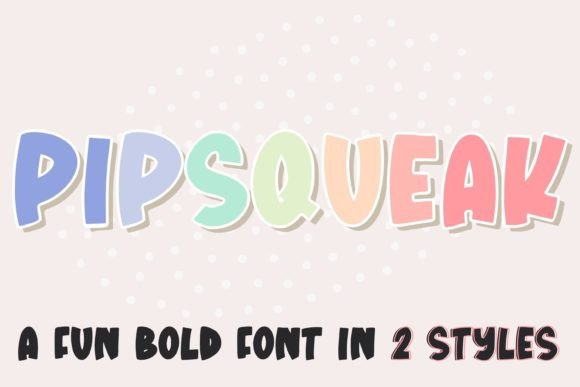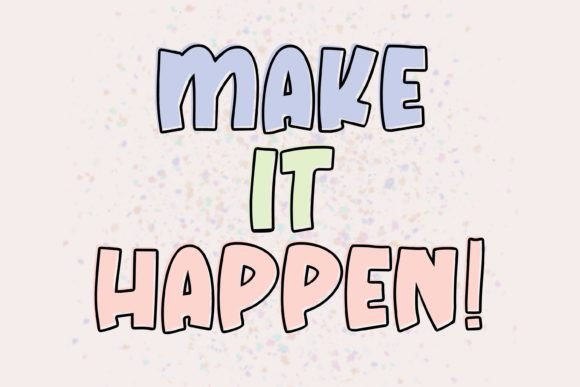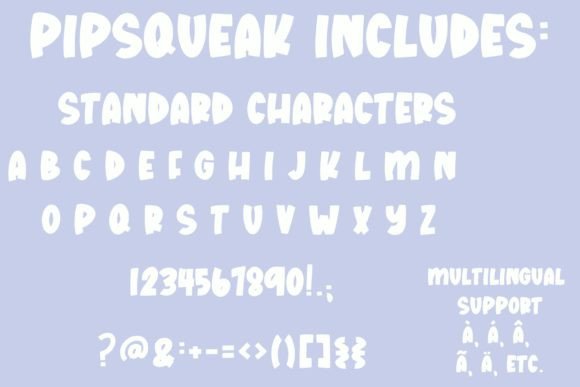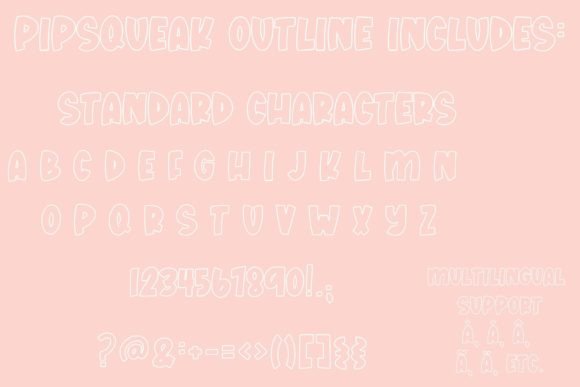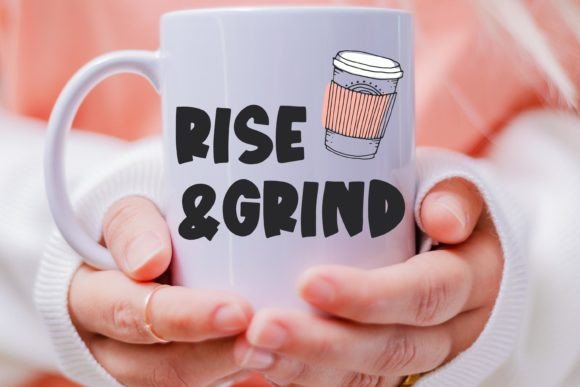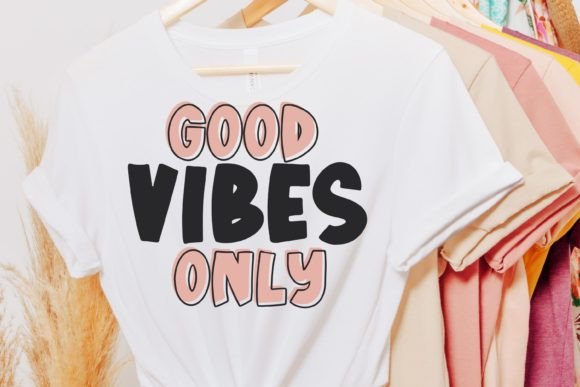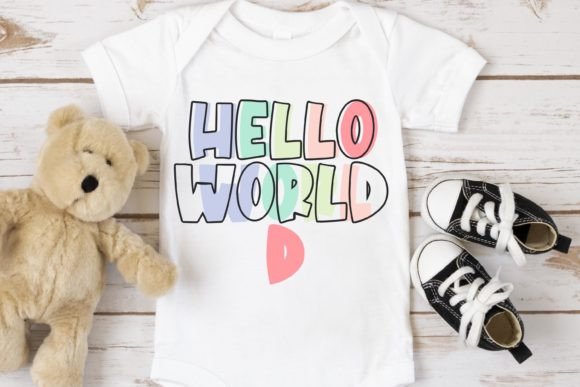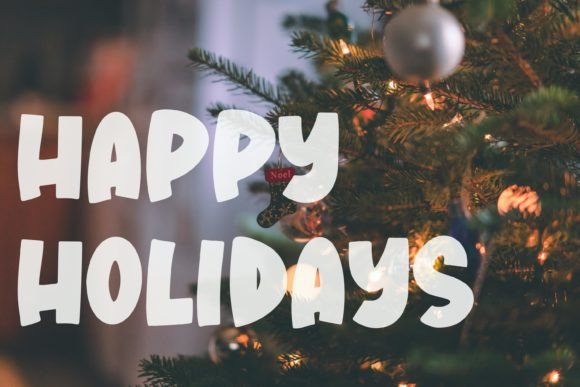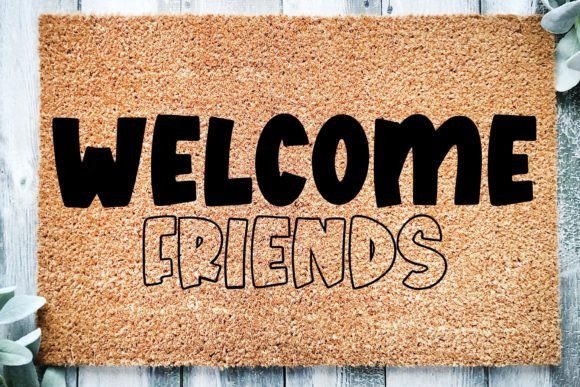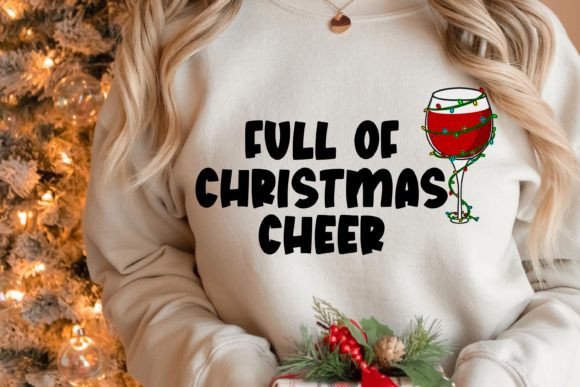
Pipsqueak Font
About Pipsqueak Font
Pipsqueak Font is a fun and bold handwritten display typeface designed to add a lively and eye-catching touch to your creative projects. Its thick strokes and playful style make it stand out in any design, whether you’re working on crafts, digital artwork, presentations, or greeting cards. Pipsqueak is an energetic font that captures attention and brings personality to every project.
Perfect for Bold and Playful Designs
Pipsqueak’s strong and fun letterforms make it ideal for projects that require a bold statement and a playful vibe. Its unique style suits:
• Craft projects and DIY designs
• Digital graphics and social media posts
• Presentations and marketing materials
• Greeting cards and invitations
• Logos and branding for casual or creative brands
The font’s distinct look helps your designs pop and engage your audience instantly.
Why Choose Pipsqueak Font?
Pipsqueak is popular because of its:
• Bold, thick strokes that grab attention
• Playful and lively character shapes
• Versatility across print and digital media
These qualities make Pipsqueak a go-to font for anyone needing a fun and standout handwritten script.
Add Energy and Personality to Your Work
Typography sets the tone for your designs. Pipsqueak Font adds boldness and joy, making your creative work feel vibrant and full of life. Whether for a craft fair, a birthday invitation, or a social media campaign, Pipsqueak helps your message shine.
Versatile Applications of Pipsqueak Font
Pipsqueak adapts well to many design uses, including:
• Handmade crafts and product packaging
• Digital content and social media graphics
• Event invitations and party flyers
• Branding for creative businesses
• Fun posters and signage
Its bold, playful style adds flair to both casual and creative projects.
In conclusion, Pipsqueak Font is a bold and fun handwritten display font that brings personality and energy to a wide range of designs. Perfect for crafts, presentations, and playful branding, Pipsqueak is sure to become a favorite font for your creative projects.